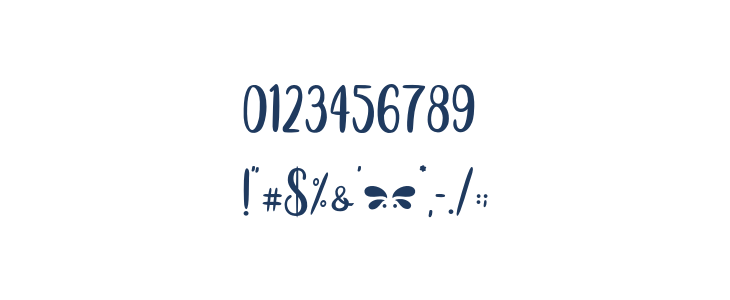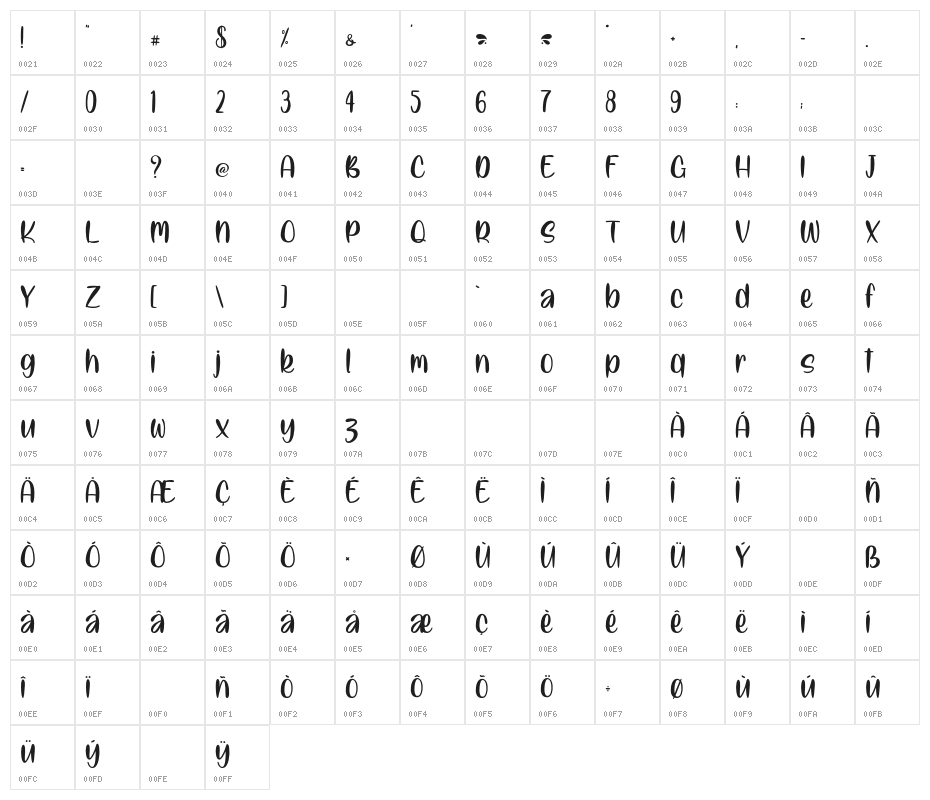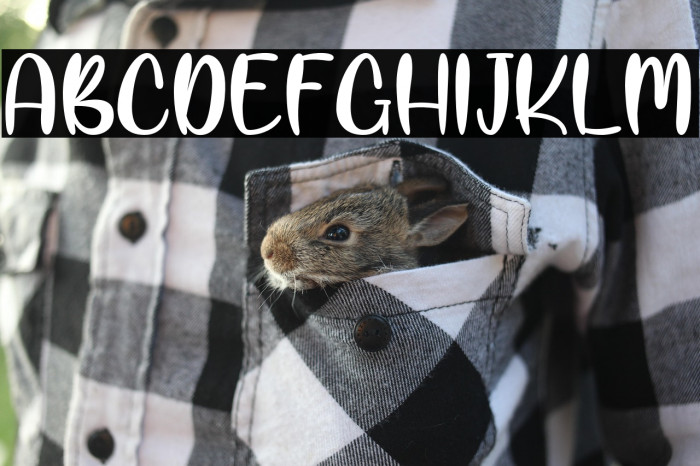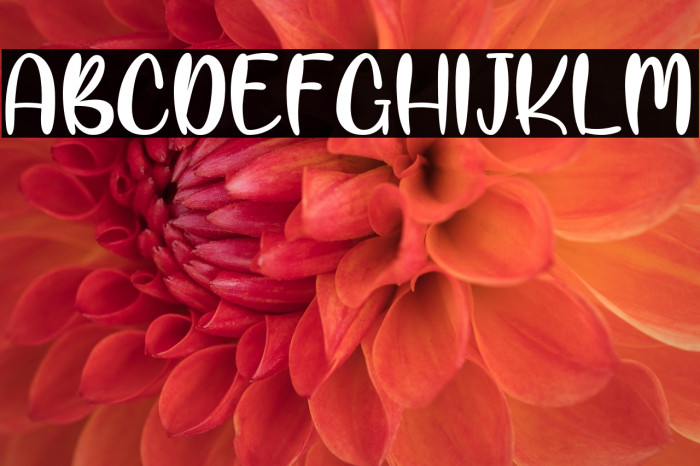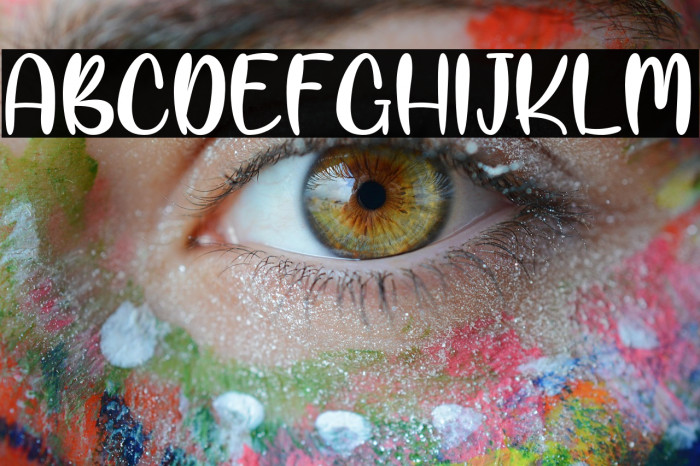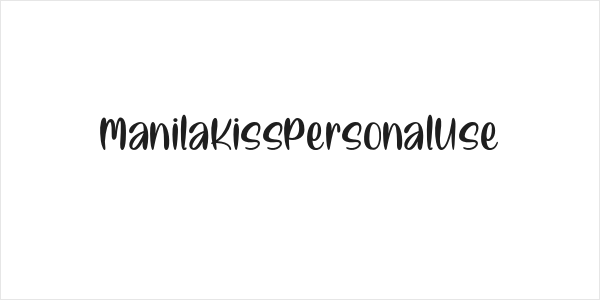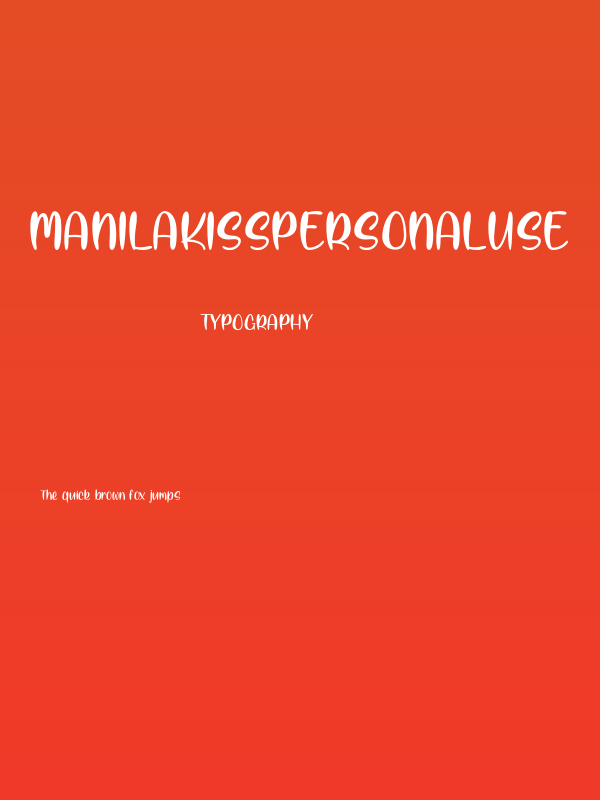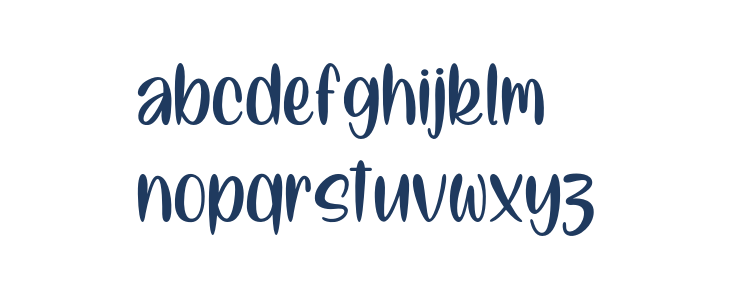
ManilaKissPersonalUse Font
ManilaKissPersonalUse Description
This font features a playful and bold handwritten style, characterized by its smooth, flowing curves and slightly exaggerated letterforms. The uppercase letters are tall and rounded, giving a sense of friendliness and approachability. The lowercase letters maintain a consistent style, with a slight slant that adds a dynamic feel. Numbers and special characters are designed to match the overall aesthetic, ensuring a cohesive look across all text. The font's thick strokes and rounded edges make it highly legible, even at smaller sizes, while its unique style adds a touch of personality to any project.
| Overall Style | Playful, Friendly |
| Proposed Projects | Ideal for greeting cards, playful branding, children's books, and social media graphics. |